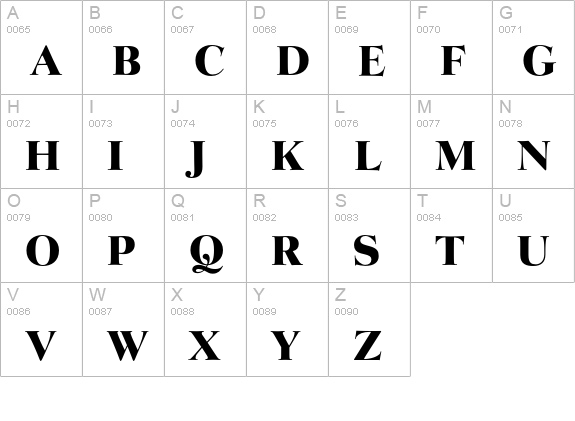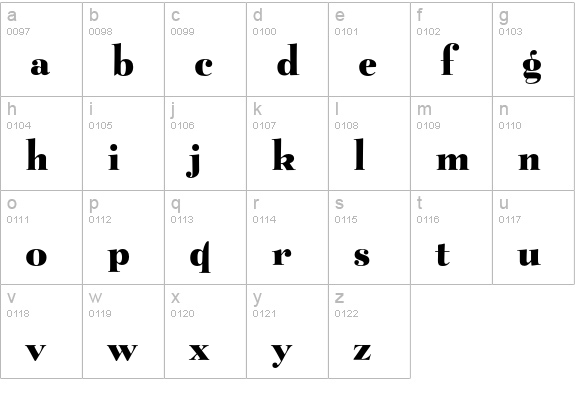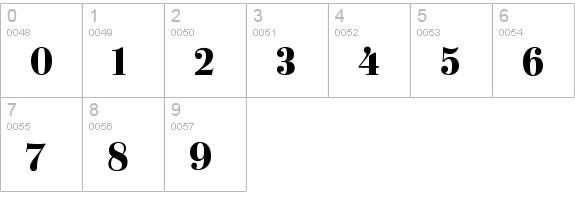
BeLucianUltra Font Details
BeLucianUltra font is a modern and stylish typeface that exudes elegance and sophistication. Its sleek lines and sharp edges make it perfect for a wide range of design projects, from branding to editorial design. The font's unique style sets it apart from the rest, making it a versatile choice for any creative endeavor. And the best part? BeLucianUltra font is completely free to download at FontsMarket.com. This means you can add a touch of class to your designs without breaking the bank. Whether you're working on a professional project or a personal creative endeavor, BeLucianUltra font is sure to make a statement. Download it today and let your creativity shine!